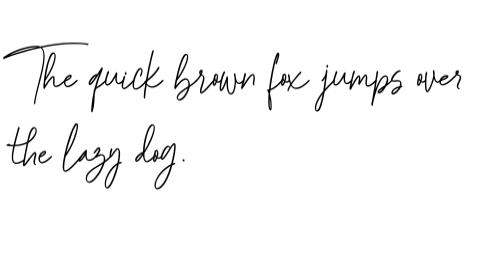
Ethereal Kaleidoscope Font: A Mesmerizing Typeface for Enchanting Projects
In the realm of typography, few fonts have managed to capture the essence of fleeting beauty and mesmerizing transformation as effectively as the Ethereal Kaleidoscope Font. This stunning new typeface is inspired by the ever-shifting patterns of a kaleidoscope, boasting an enchanting flow and delicate details that make it perfect for projects that demand a touch of the otherworldly.
The Inspiration Behind Ethereal Kaleidoscope
The Ethereal Kaleidoscope Font draws its inspiration from the mesmerizing world of kaleidoscopes. These colorful, symmetrical patterns have captivated human imagination for centuries, evoking a sense of wonder and enchantment. The font’s creator sought to bottle the essence of this captivating phenomenon, crafting a typeface that embodies the same sense of dynamic movement and transformation.
Design Features of Ethereal Kaleidoscope
Ethereal Kaleidoscope is a meticulously crafted font that showcases a range of design features, each carefully considered to evoke the mesmerizing qualities of a kaleidoscope. Some of the font’s key characteristics include:
- Delicate Details: The font features intricate, swirling patterns that dance across each letterform, imbuing the text with a sense of movement and energy.
- Enchanting Flow: The letters in Ethereal Kaleidoscope are designed to flow seamlessly into one another, creating a sense of continuity and fluidity that is reminiscent of a kaleidoscope’s shifting patterns.
- Symmetrical Balance: The font’s symmetrical design ensures that each letterform is balanced and visually appealing, much like the carefully crafted patterns found in a kaleidoscope.
Use Cases for Ethereal Kaleidoscope
Ethereal Kaleidoscope is a versatile font that can be used in a wide range of projects, from creative branding and advertising to packaging and editorial design. Some potential use cases for this enchanting font include:
- Magazines and Editorials: Add a touch of whimsy and sophistication to your magazine or editorial content with Ethereal Kaleidoscope, perfect for feature stories, headings, and titles.
- Branding and Identity: Create a captivating brand identity with Ethereal Kaleidoscope, ideal for businesses that want to convey a sense of creativity, wonder, and enchantment.
- Packaging Design: Make your product packaging stand out with Ethereal Kaleidoscope, adding a touch of magic and allure to your product’s visual identity.
Typography Tips for Working with Ethereal Kaleidoscope
To get the most out of Ethereal Kaleidoscope, consider the following typography tips:
- Experiment with Color: Take advantage of the font’s intricate patterns and experiment with different color schemes to create a truly eye-catching effect.
- Play with Scale: Don’t be afraid to experiment with different font sizes to create visual interest and hierarchy in your design.
- Combine with Other Fonts: Pair Ethereal Kaleidoscope with complementary fonts to create a unique and visually appealing typographic combination.
Ethereal Kaleidoscope is a captivating new font that is sure to enchant designers and audiences alike. With its mesmerizing patterns, delicate details, and enchanting flow, this typeface is perfect for projects that demand a touch of the otherworldly. Whether you’re working on a branding campaign, editorial content, or packaging design, Ethereal Kaleidoscope is an excellent choice for anyone looking to add a dash of magic to their creative projects.